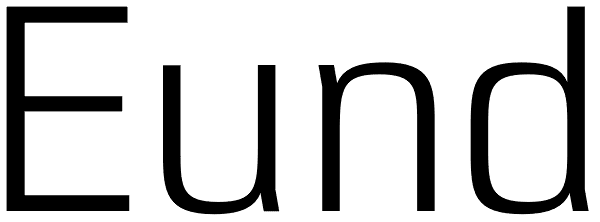
Eund
A geometric sans serif with minimal contrast. Shallow curves are smoothed out of rectangular letterforms to produce a fresh, legible typeface best suited to information based applications. Details include 9 weights with italics, 500 characters, 5...